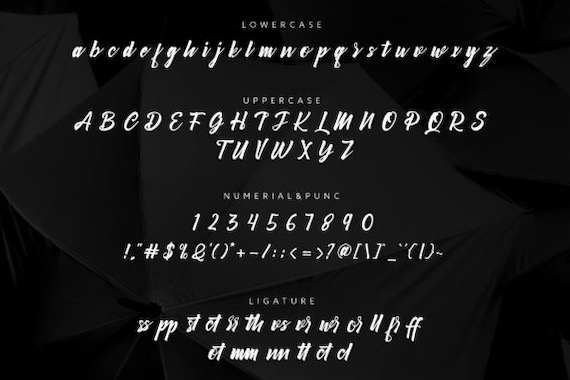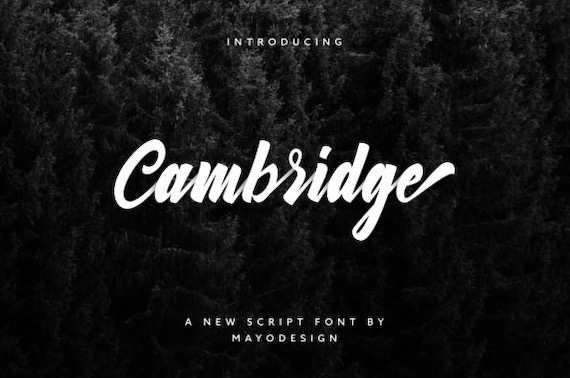
Cambridge is a handwritten script font that has a great modern classy calligraphy look. It was created and shared by MayoDesign, this script font is very perfect for a large of designs like logotypes, apparel, invitations, branding, packaging, advertising, etc. Cambridge font is PUA encoded, which means you can access all of the glyphs and swashes with ease!
Cambridge Modern Script Font